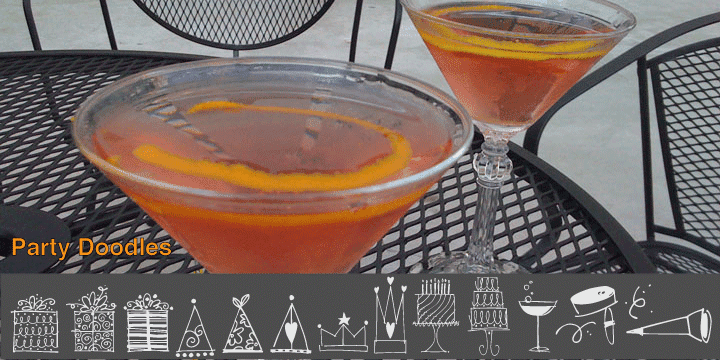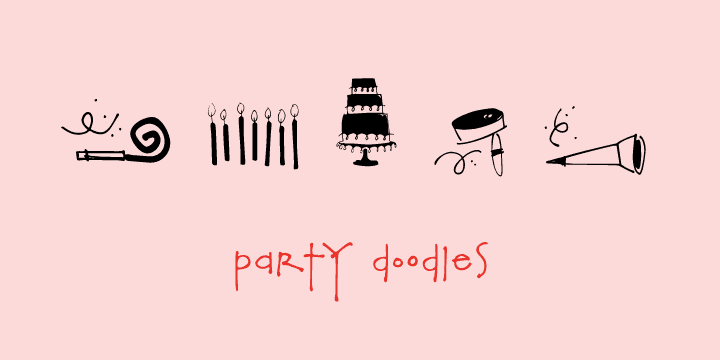
Party Doodles (1 font)
Party Doodles: the perfect font for that quickie party flyer.
Six party words in script and hand printing as well as 24 party drawings of gifts, party hats and party crowns, a sundae, a cupcake, fancy cakes, drinks, party horn and noisemakers, candles and a gift tag.
One font, many possible party flyers.